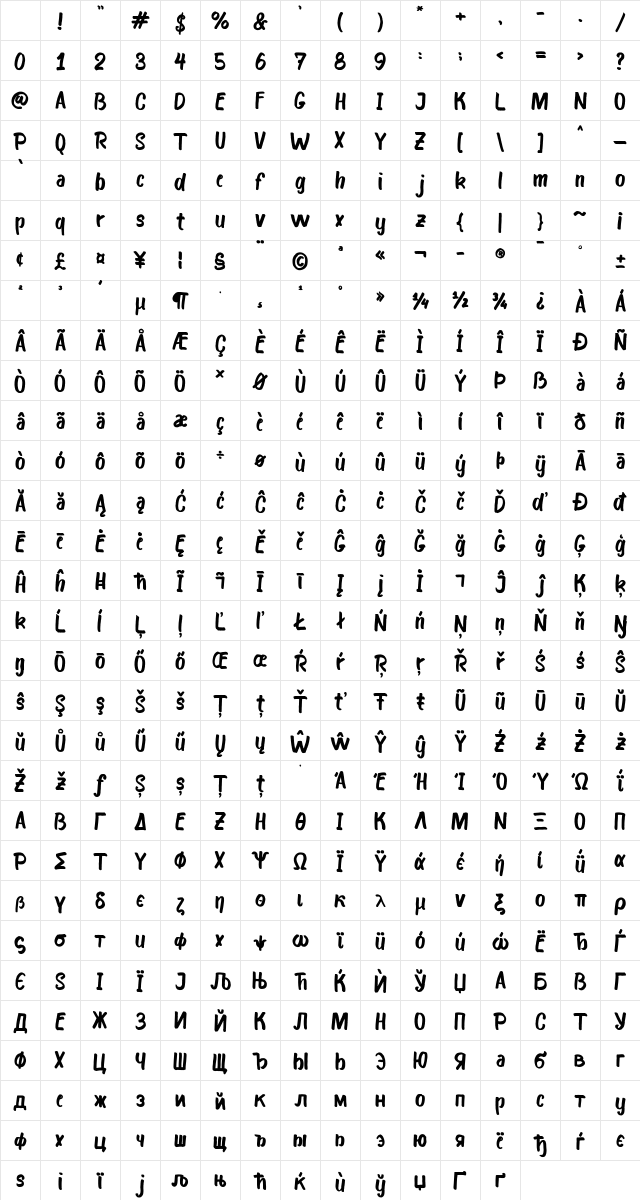
Complete Bosk Test Regular glyph index. Displaying only characters natively supported by Bosk Test Regular font.
Bosk Test is a composed and adaptable typeface that performs quietly and consistently across a wide range of design contexts.